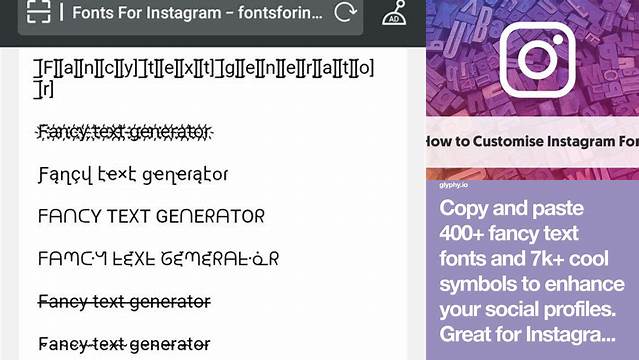
Instagram Font Magic: Copy & Paste Symbols!
Hey guys! Ever wondered how to spice up your Instagram game with some seriously cool fonts and symbols? You know, those fancy characters you see in bios, captions, and stories that make profiles pop? Well, you're in the right place! Today, we're diving deep into the world of copy and paste fonts for Instagram symbols, and I'm here to tell you it's easier than you think. Forget those boring, default fonts; we're talking about turning your Instagram into a visual masterpiece. This guide will cover everything, from the basics of why you'd want to use different fonts to the step-by-step process of copying and pasting those amazing symbols. Get ready to transform your Instagram profile and grab everyone's attention!
Why Use Copy and Paste Fonts for Instagram Symbols?
Okay, so why bother with all this font fuss? The answer is simple: different fonts and symbols make you stand out from the crowd. Think about it – Instagram is a visual platform, and users are constantly scrolling through feeds. If your profile looks the same as everyone else's, it's easy to get lost in the shuffle. But when you use unique fonts and eye-catching symbols, you instantly grab attention. It's like a visual handshake that says, “Hey, look at me! I'm different, and I'm worth checking out!” Using copy and paste fonts for Instagram symbols also helps with branding. You can create a consistent visual identity that people will recognize. This helps build brand awareness and make your profile instantly recognizable. It is important for your business or personal brand. It is an important thing to stay ahead of the trends. In a world where trends change in the blink of an eye, staying ahead of the curve is vital. Using copy and paste fonts for Instagram symbols ensures your profile is always fresh and engaging. These fonts and symbols are used to convey a specific tone or message, depending on your brand’s identity and target audience. By using copy and paste fonts for Instagram symbols, you add personality to your profile, making your profile more relatable and trustworthy. A well-designed profile creates a positive first impression, encouraging users to explore your content. Whether you are a brand, influencer, or a regular user, there is an advantage to it. This helps you create a consistent image, make you memorable, and showcase creativity. There's power in the visual. It's all about making your profile visually appealing, memorable, and interesting.
The Power of Visual Appeal with Different Fonts
Let's face it, we're all drawn to things that look good. The same principle applies to Instagram. A visually appealing profile is much more likely to attract followers and engagement. Different fonts can completely transform how your profile looks. Think about it: you can use bold fonts to make important information stand out, or you can use playful fonts to give your profile a friendly and approachable vibe. Different fonts add a touch of creativity and individuality. This helps in setting you apart from the crowd. It's like adding a splash of color to a black-and-white world. You're not just sharing content; you're creating an experience. If you're a business, using copy and paste fonts for Instagram symbols can help you project a professional image. It demonstrates attention to detail and a commitment to quality. For personal profiles, different fonts add personality and make your profile more authentic. It's a way to express yourself and let your unique personality shine. Different fonts also enhance readability. While some fonts are decorative, others are designed to be easy to read. By choosing the right fonts, you can make your content more accessible and ensure your message gets across clearly. This is important if you're sharing a lot of text in your captions or bio. And if you want to try new things, using copy and paste fonts for Instagram symbols is an easy and accessible way to experiment with your profile.
How to Copy and Paste Fonts for Instagram: A Step-by-Step Guide
Alright, let's get down to the nitty-gritty. Using copy and paste fonts for Instagram is super simple. First things first, you need a font generator. There are tons of free online tools out there. You can search for “Instagram font generator” or “fancy text generator” on Google, and you'll find a whole bunch of options. I will share some of my favorite ones later, but for now, let's focus on the process. Once you've found a font generator, you'll typically see a text box where you can type in the text you want to format. Type your desired text into the text box. As you type, the generator will show you different font styles in real time. Just scroll through the options and find the one that you like. If the generator offers any special symbols or characters, they'll usually be displayed along with the fonts. When you find the font you want, select it. Most generators have a “copy” button next to each font style. Click the copy button, and the formatted text will be copied to your clipboard. Now, go to your Instagram profile. You can edit your bio, captions, or stories. Paste the formatted text where you want it to appear. Most platforms support copy and paste, so you should be able to paste the text directly into the text field. When you're done, save your changes. Your profile should now display your fancy new fonts! If you do have a problem with the copy and paste fonts for Instagram, I will share some helpful tips. Keep in mind that Instagram has limitations on the number of characters. Keep your text concise to ensure it fits within the space available. Some font generators may create fonts that are not fully supported by Instagram. If you find that a font doesn't display correctly, try a different one.
Finding the Right Font Generator
As mentioned earlier, there are tons of online font generators. I know, the choice can feel overwhelming. But don't worry, I will give you some suggestions. One of the most popular options is LingoJam. It's easy to use and offers a wide variety of font styles. Another great choice is CoolSymbol. It is known for its user-friendly interface and its selection of cool symbols. If you're looking for something with more advanced features, you can also check out Stylish Text. It has a lot of customization options. The best font generator for you will depend on your preferences. It depends on the features you need. When choosing a font generator, consider the following factors. Always look at the font selection, as different generators offer different font styles. Check for ease of use. Choose a generator with a user-friendly interface. Make sure that the generator is compatible with Instagram and other social media platforms. Consider any additional features like symbol support or customization options.
Instagram Symbols: Adding More Flair to Your Profile
Copy and paste fonts for Instagram symbols are the next level of font magic. Adding symbols is like adding sprinkles to a cupcake. They add an extra touch of personality and flair. Symbols can be used to represent different things, such as emojis, icons, and other special characters. These add visual interest and make your profile more engaging. Symbols can be used to break up large blocks of text. You can use them to highlight important information. It can make your content easier to read. Symbols can also be used to convey emotions or add context to your content. For example, a heart emoji can be used to show love and appreciation. A fire emoji can be used to show enthusiasm. Copy and paste fonts for Instagram symbols allow you to incorporate a wide range of symbols. You can use them to customize your bio, captions, and stories. This adds visual interest and makes your profile more unique. To use symbols, you can find them in a variety of places. You can use online symbol libraries. You can also use your phone's built-in emoji keyboard. Copy and paste the symbols into your text, and you're good to go. Remember that Instagram may not support all symbols. If a symbol doesn't appear, try a different one or try using a different font.
Best Places to Find Instagram Symbols
Okay, so where do you find these magical symbols? There are several sources. Your phone's built-in emoji keyboard is a great starting point. It is full of emojis and other symbols that you can copy and paste. Online symbol libraries are another great resource. Websites such as CoolSymbol and Symbols.com offer a wide variety of symbols. These symbols are categorized by type, so you can easily find what you need. If you are looking for something more specific, you can try searching online for a specific symbol. For example, you can search for